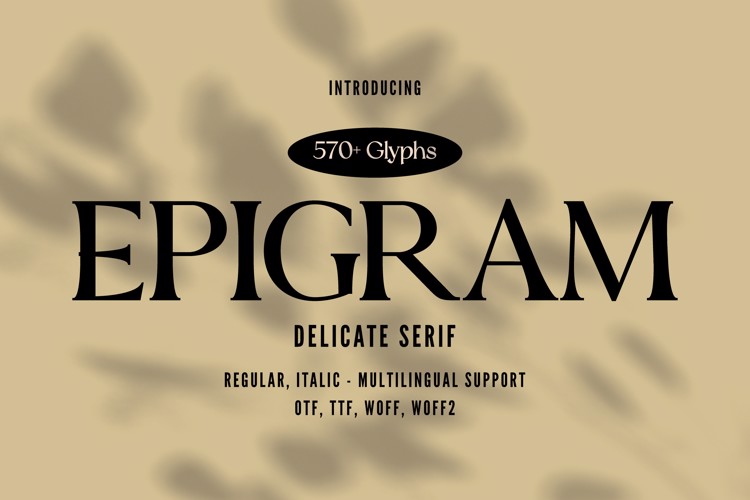
EPIGRAM Font
🎨 Font Name: EPIGRAM by Minimalist Art Studio
🎨 Font Description: EPIGRAM is a delicate serif with 570+ glyphs and multilingual support, ideal for editorial design, luxury branding, and poetic packaging.
✔ Complete Latin set + multilingual diacritics
✔ Alternates, stylistic sets & ligatures
✔ Numbers, small caps, and extended punctuation
✔ Bonus italics and family styles